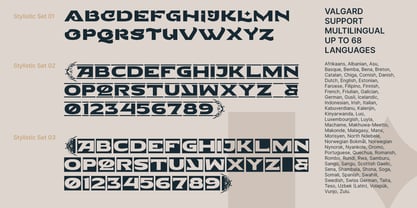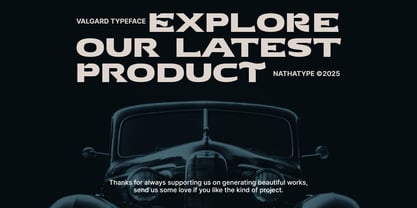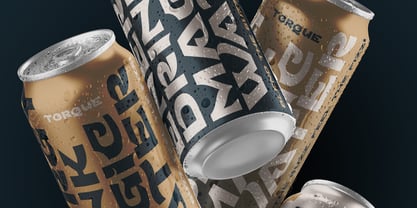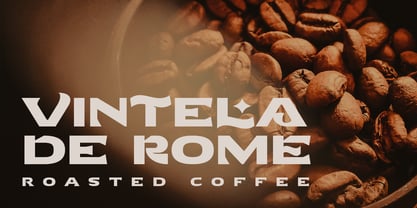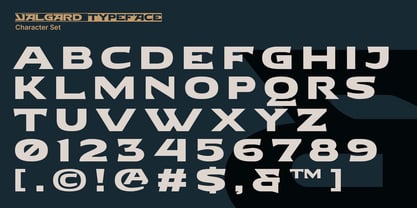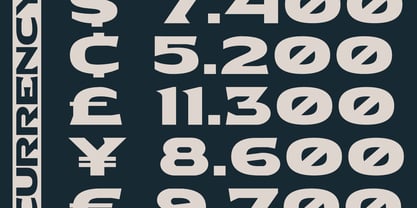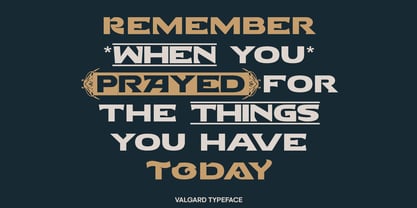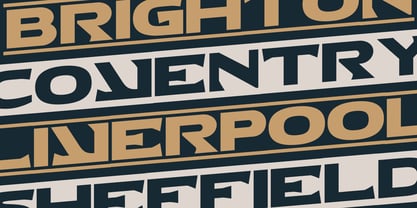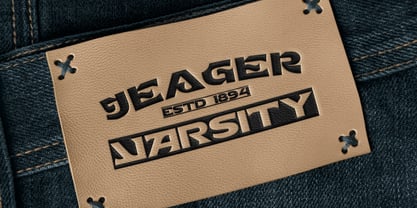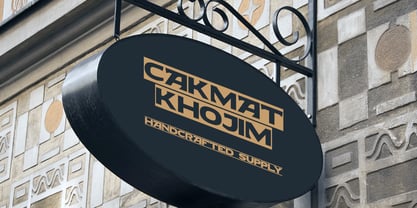
Valgard
Valgard is a bold, uppercases vintage font that draws inspiration from the ornate beauty of Victorian typography. Designed with wide letterforms and a strong weight, it conveys both grandeur and authority while keeping an elegant decorative touch. Valerins captures the timeless charm of classic Victorian design with a bold presence that commands attention. In addition, enjoy the features here.
Features:
• Stylistic Sets
• Multilingual Supports
• PUA Encoded
• Numerals and Punctuations
Valgard fits in branding, packaging, logos, posters, headlines, and many more designs. Find out more ways to use this font by taking a look at the font preview.